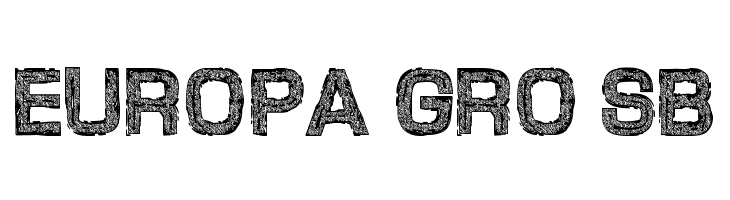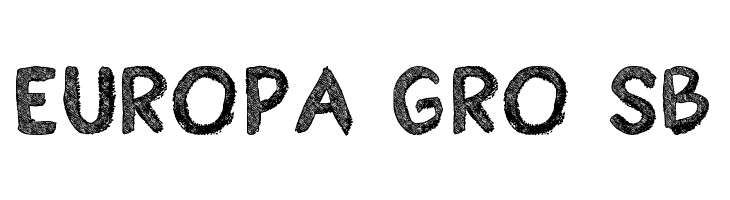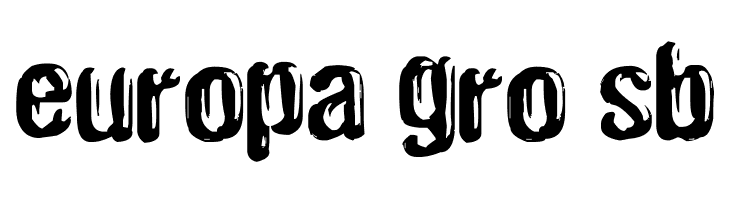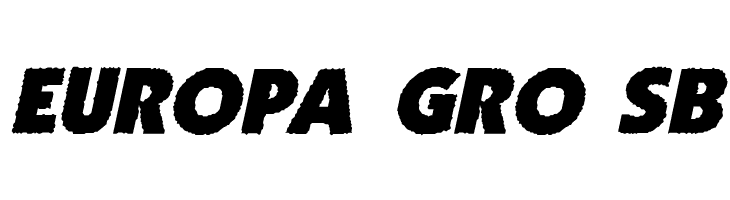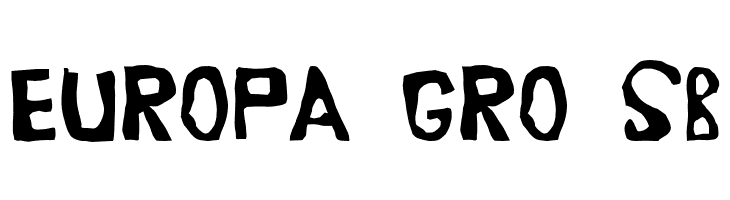
A bold, distressed font with a grungy, textured appearance.
A bold, graffiti-inspired font with thick, irregular strokes and a rebellious aesthetic.
A bold, textured font with a distressed, vintage appearance.
A textured, hand-drawn font with a playful and artistic style.
A bold, textured font with a handcrafted, vintage feel.
A bold, italicized font with a dynamic and modern style.
A playful, bold, and hand-drawn style with irregular shapes and thick strokes.
A rugged, hand-drawn font with a natural, adventurous style.
A bold, textured font with a distressed, vintage appearance.